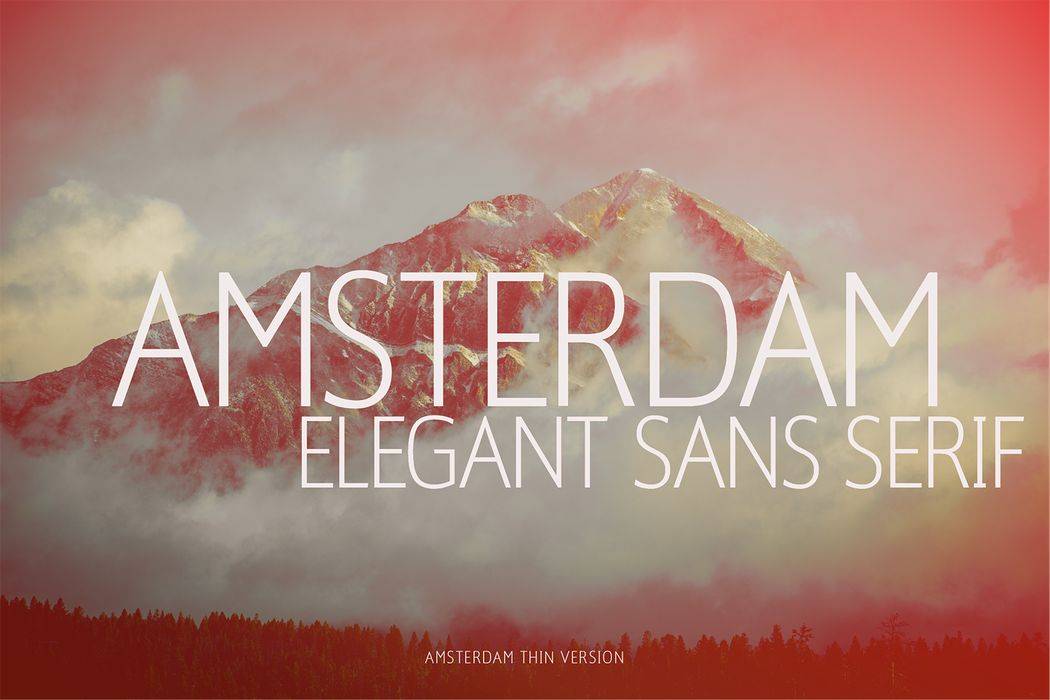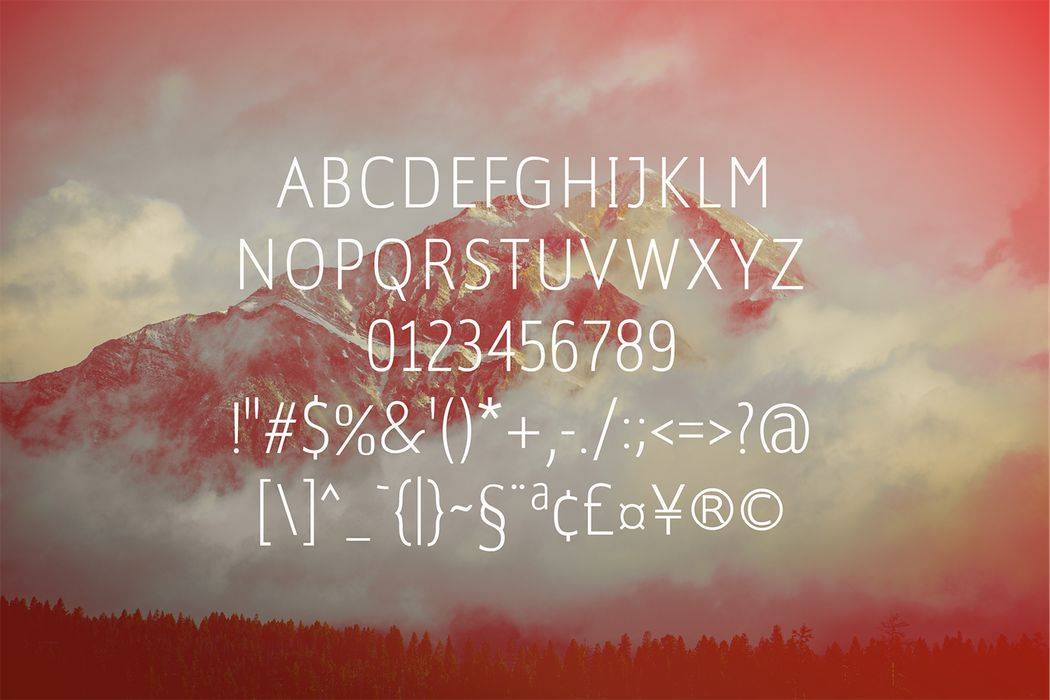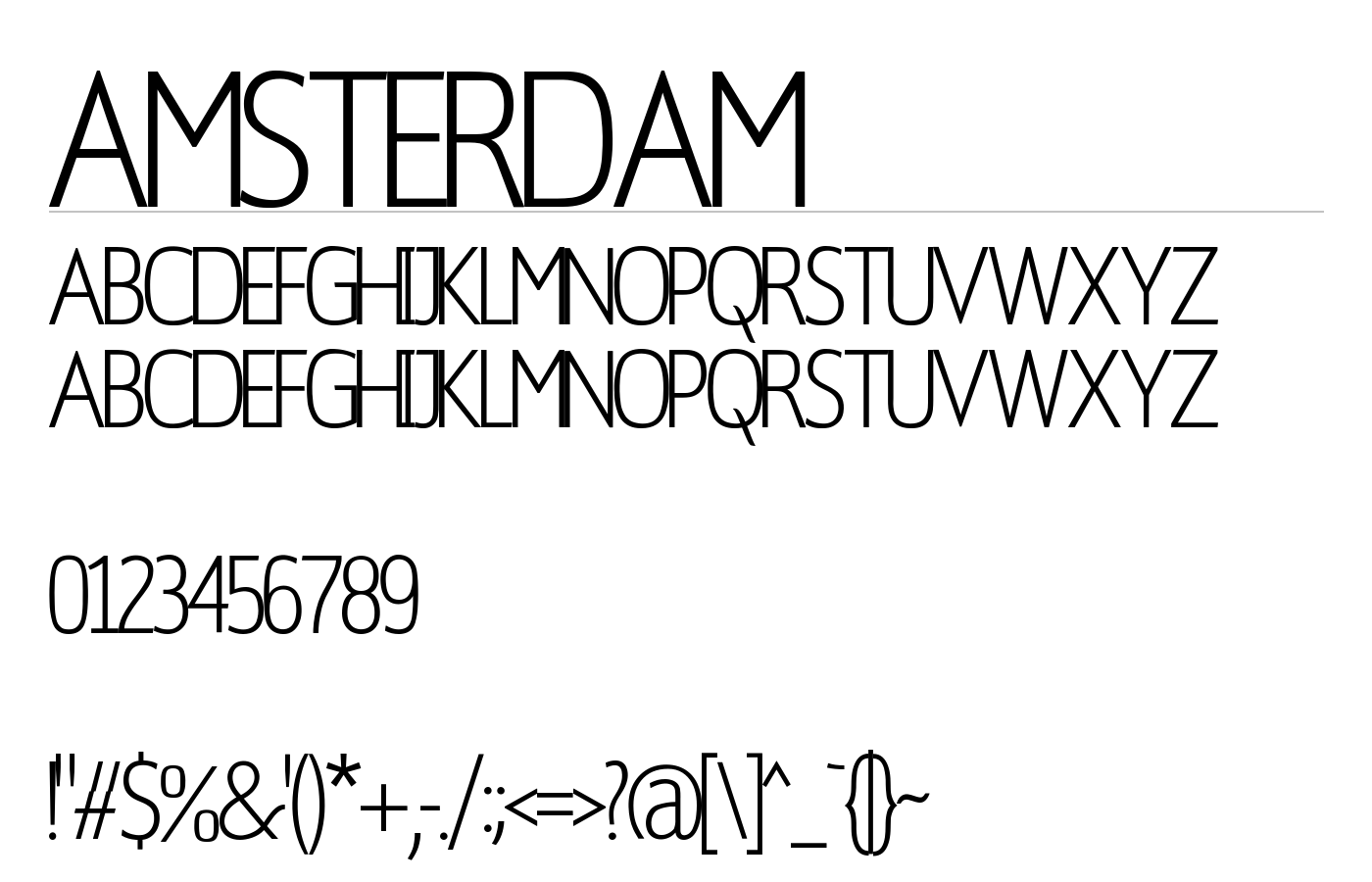
Amsterdam Thin is a sleek, modern sans serif font featuring tall, narrow letterforms with a clean, geometric style. Its very light weight and high contrast create an elegant and refined look, making it ideal for stylish branding, fashion magazines, and sophisticated headlines where a contemporary yet minimalist vibe is desired. This font works best in large sizes to showcase its delicate details and distinctive character shapes.
Amsterdam Thin Font
About Amsterdam Thin Font